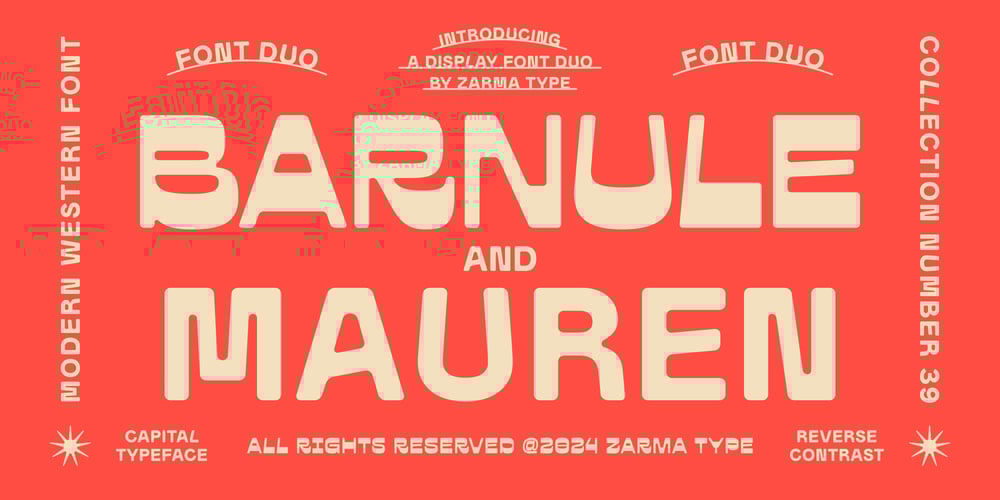
Barnule Font Family was designed by Azzam Ridhamalik and published by Azzam Ridhamalik. Barnule contains 2 styles and family package options. Barnule and Mauren Font Duo, the perfect blend of modern western flair and vintage appeal. With its bold, all-caps style and unique rounded edges, it’s designed to make your projects stand out. This font duo offers a clean, readable aesthetic, ideal for anything from apparel and packaging to branding and outdoor-themed designs. Its versatility shines in both digital and print, with a robust selection of alternate characters and multilingual support. Capture the essence of the American frontier with this timeless typeface that adds both simplicity and elegance to your work.